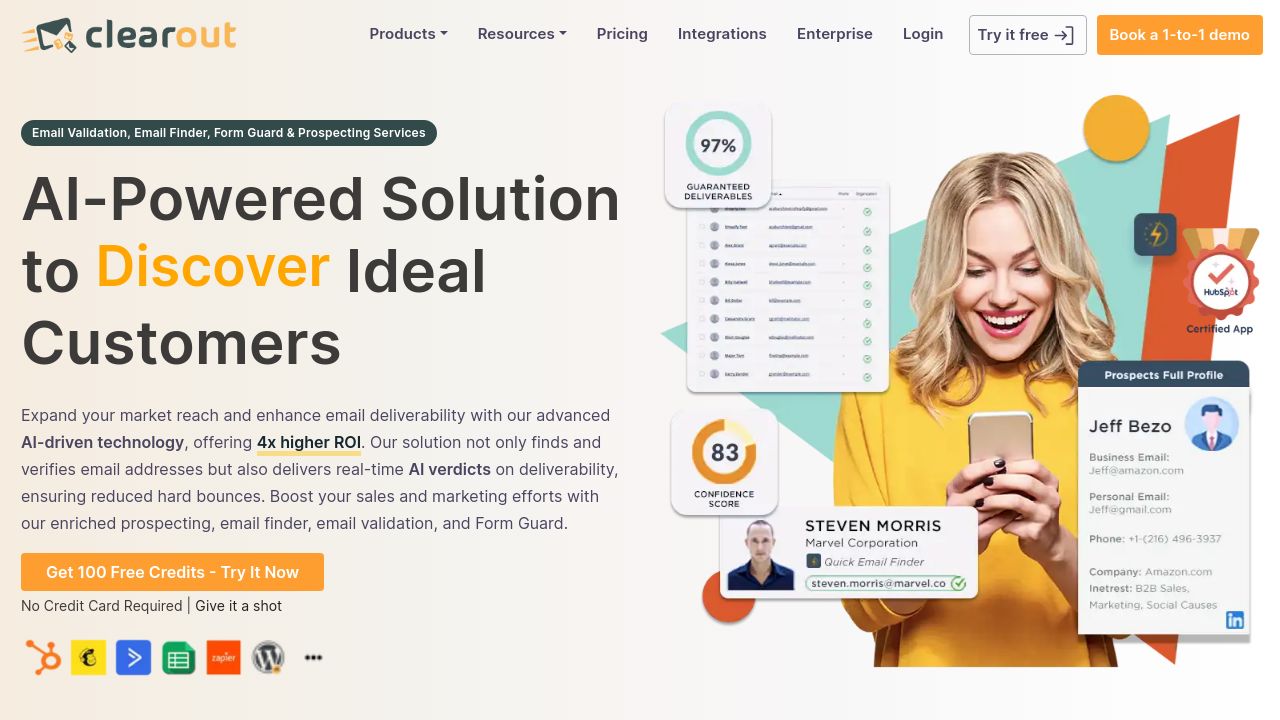
What fonts does Clearout use?
Clearout.io uses Inter, JetBrains Mono, Geist and Instrument Serif as its main typefaces. 5 fonts detected, last checked Sep 29, 2026.
At clearout.io, a platform dedicated to email validation and sales prospecting, the typography reflects its commitment to clarity and functionality. The primary font, Inter, is complemented by JetBrains Mono and Geist, which together create a harmonious balance between readability and modern aesthetics. This careful selection of typefaces ensures that the content is accessible and engaging for businesses seeking potential customers, enhancing the overall user experience on the site.
Frequently asked questions about Clearout.io's fonts
What fonts does Clearout.io use?
Clearout.io uses Inter, JetBrains Mono, Geist and Instrument Serif as its main typefaces. 5 fonts detected, last checked Sep 29, 2026.
What primary fonts does clearout.io use?
clearout.io primarily uses Inter, JetBrains Mono, Geist, Instrument Serif, and FontAwesome, all in a weight of 400. These fonts work together to create an engaging user interface.
How do the fonts on clearout.io compare to others?
Fonts like Inter and JetBrains Mono are designed for excellent legibility, making them ideal for digital platforms. Compared to more decorative fonts, they provide a straightforward and clear aesthetic that aligns with clearout.io's purpose.
What styles and weights are used for the fonts on clearout.io?
clearout.io predominantly uses the regular weight (400) for its primary fonts, which maintains consistency and readability across different devices and screen sizes.